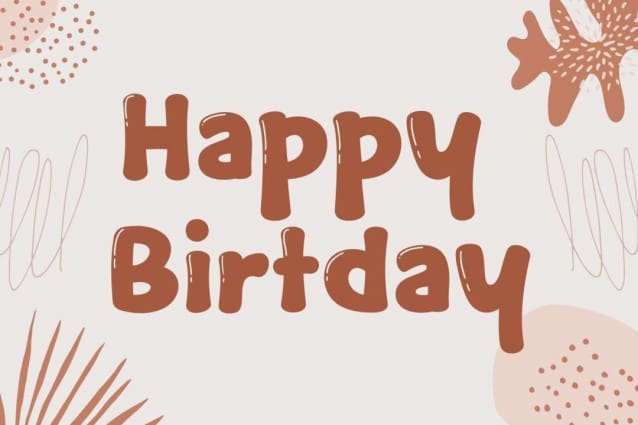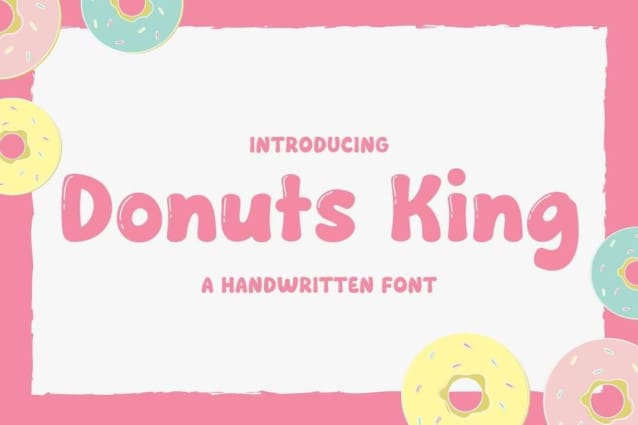
Donuts King Font
Donuts King Font is a chunky, comic, and cartoon display font. With its neat and joyful personality, this font will enhance any project you wish to create!